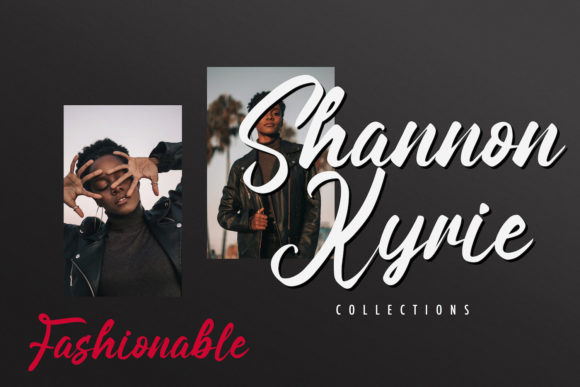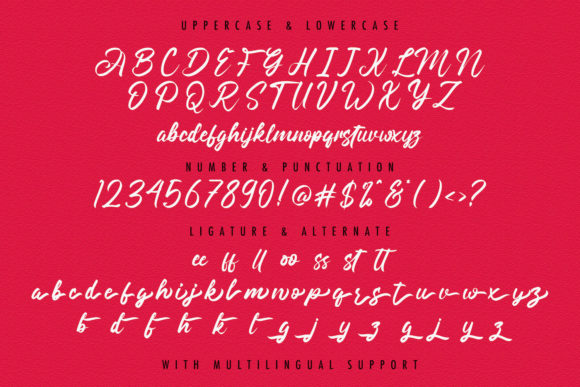
About Angilla Denis Font
Angilla Denis is a modern script font that is readable, friendly and stylish. It is defined by smooth curves and is perfect for fashion branding or editorial designs. Add it confidently to your projects, and you will love the results.